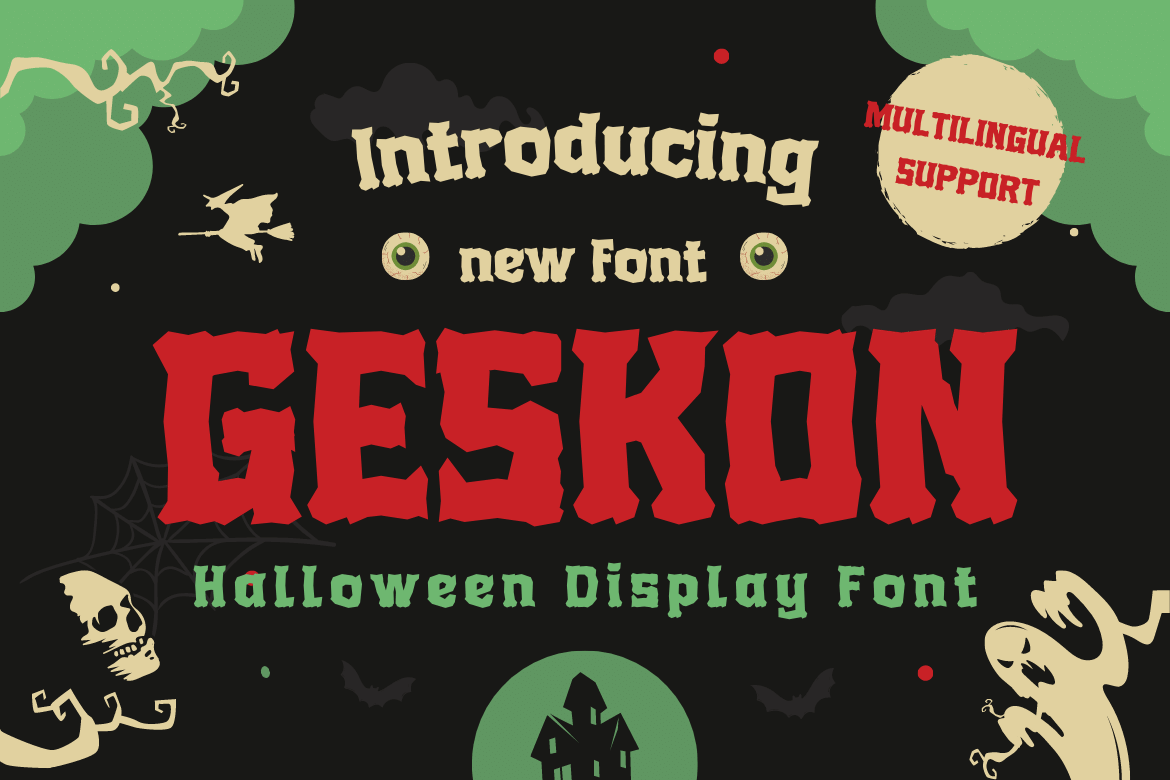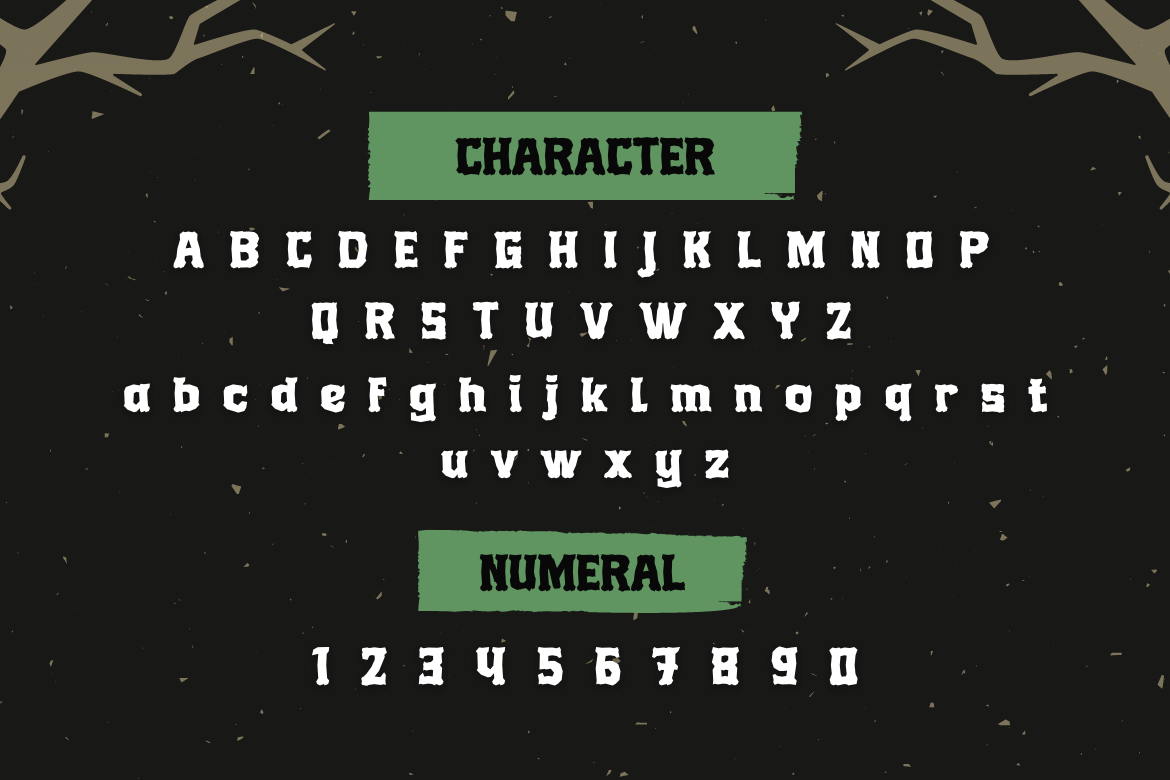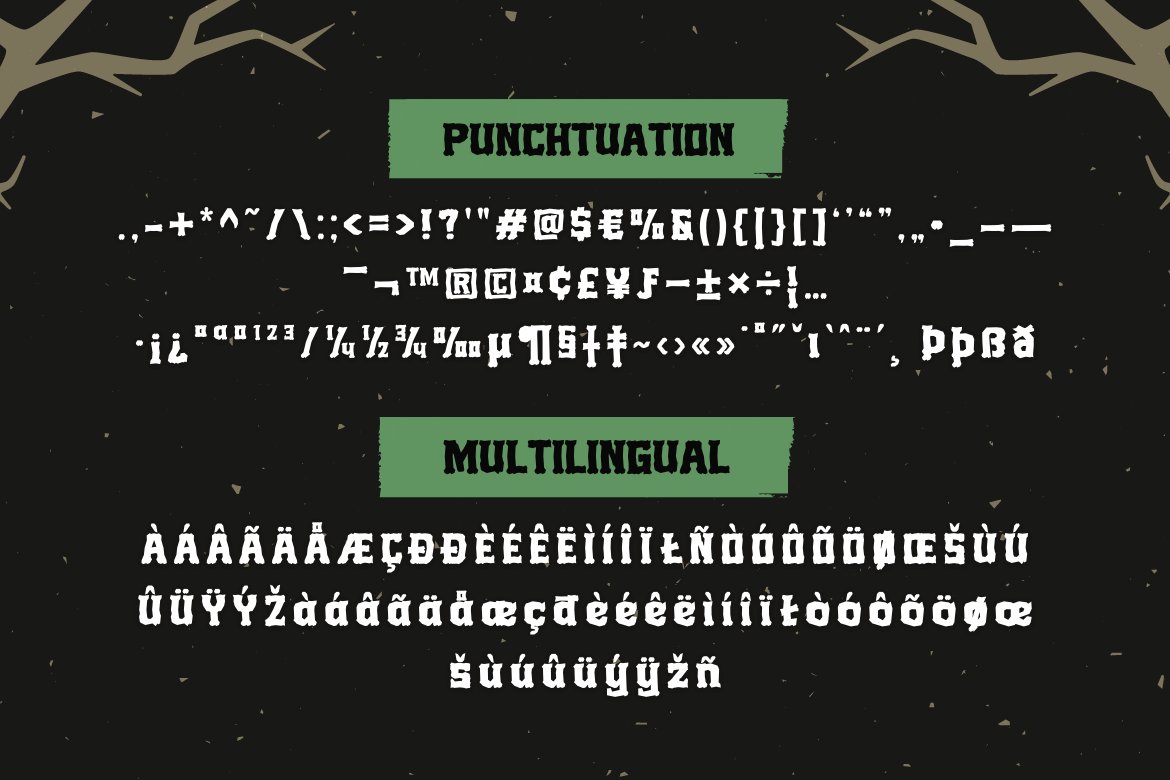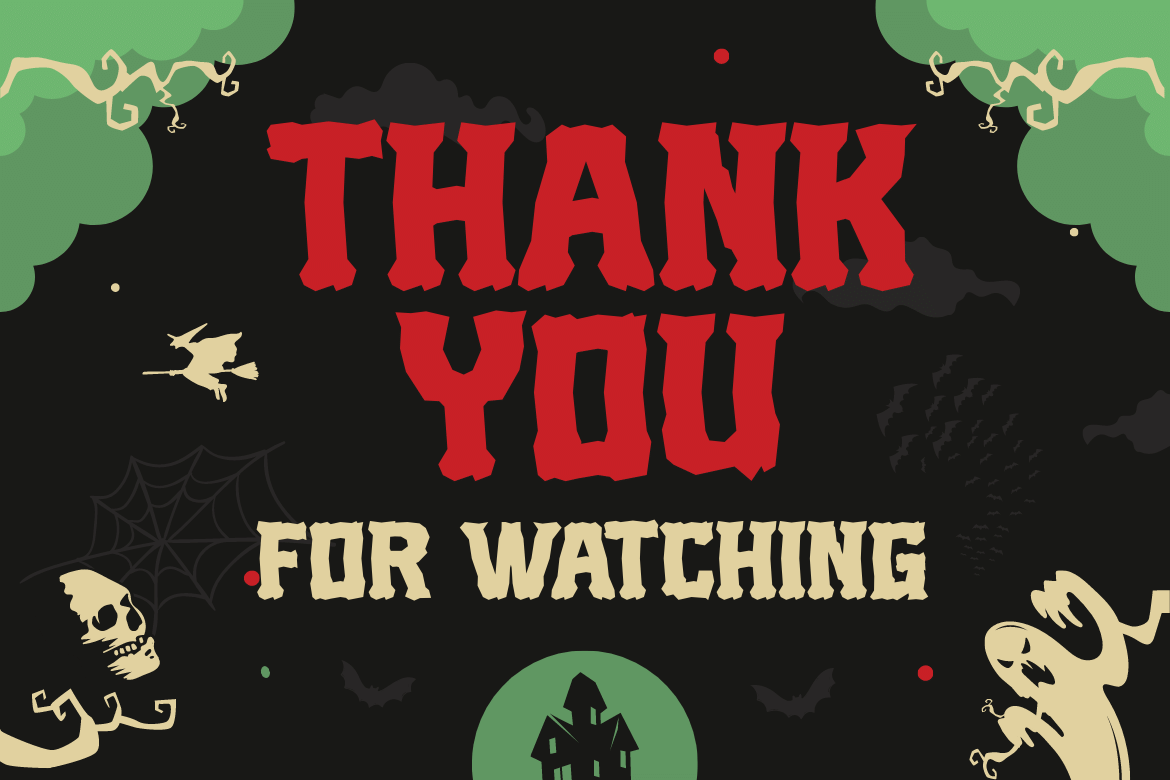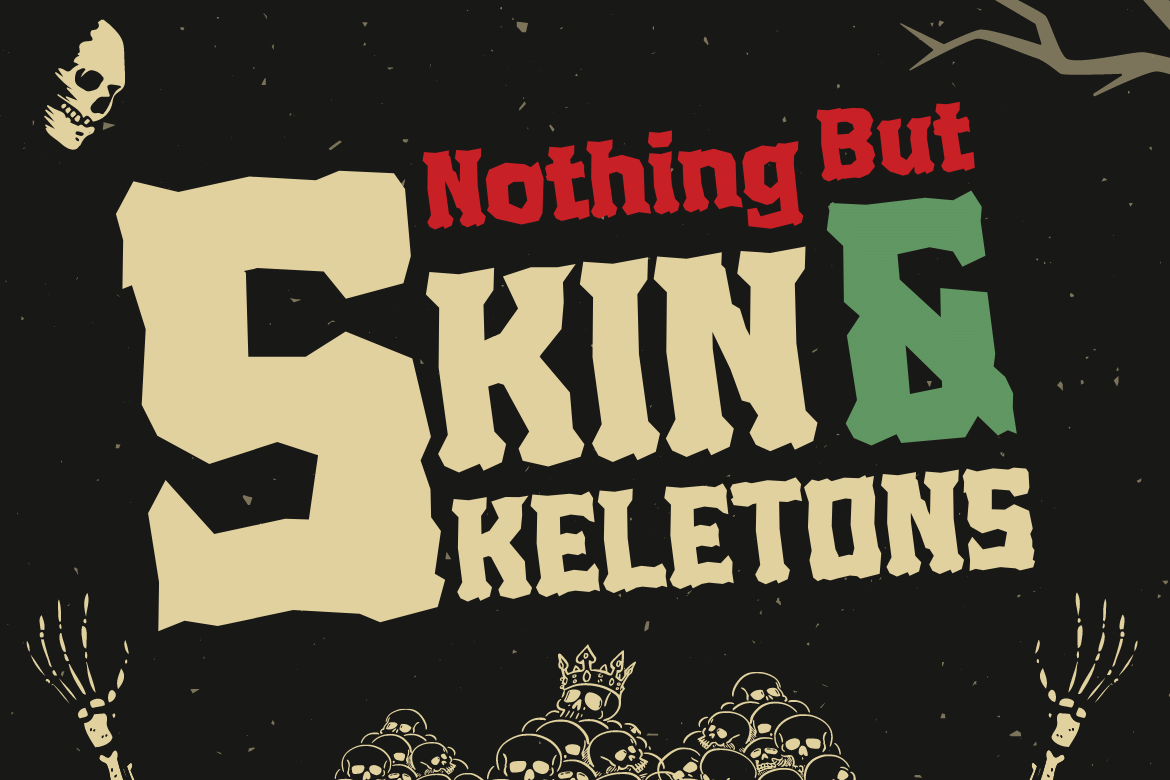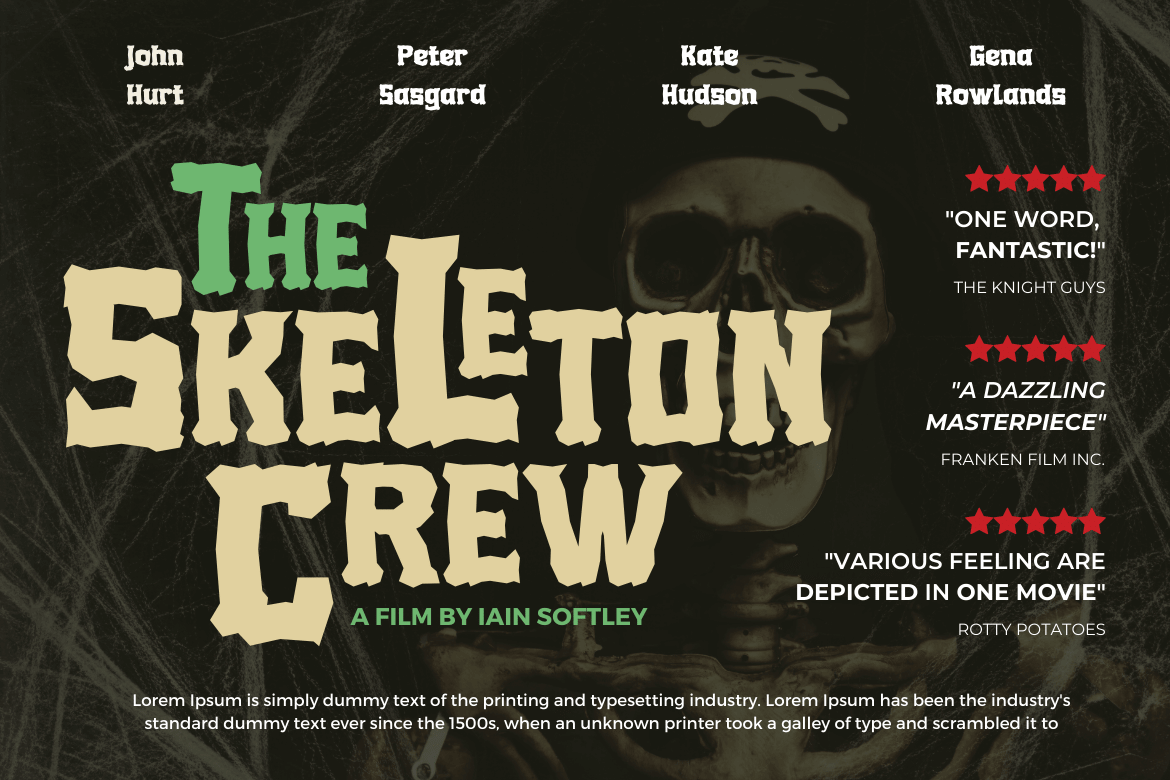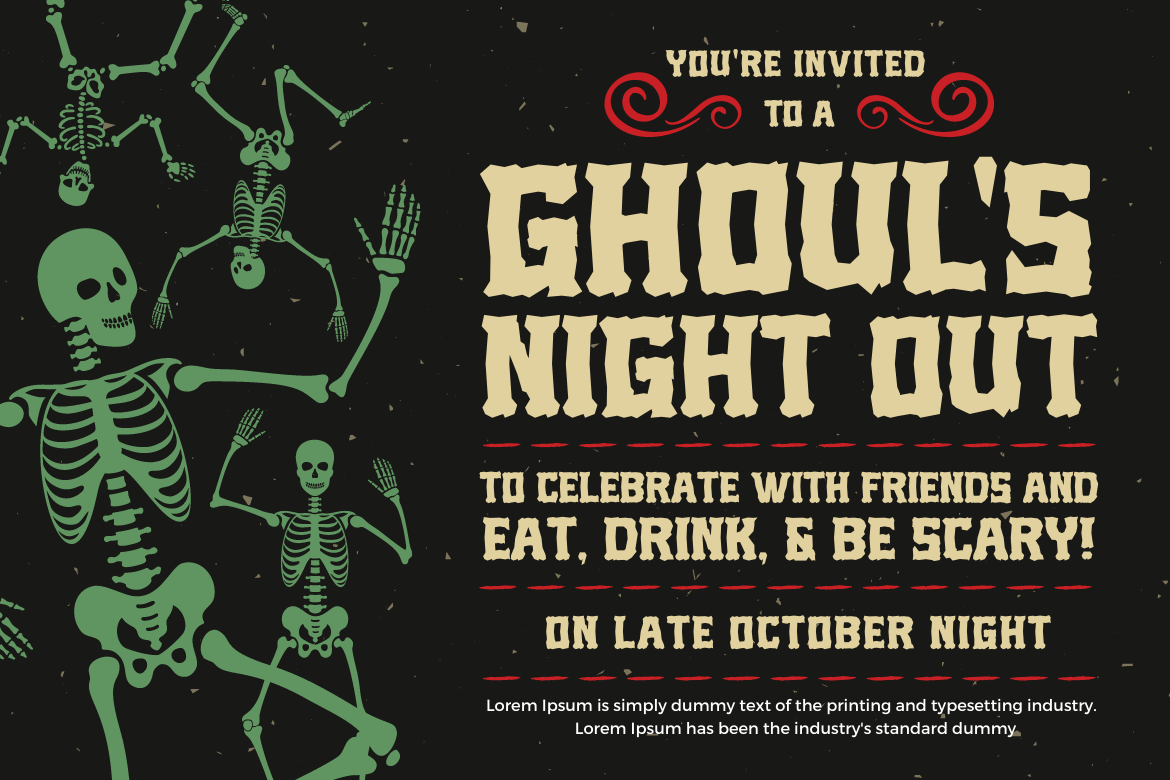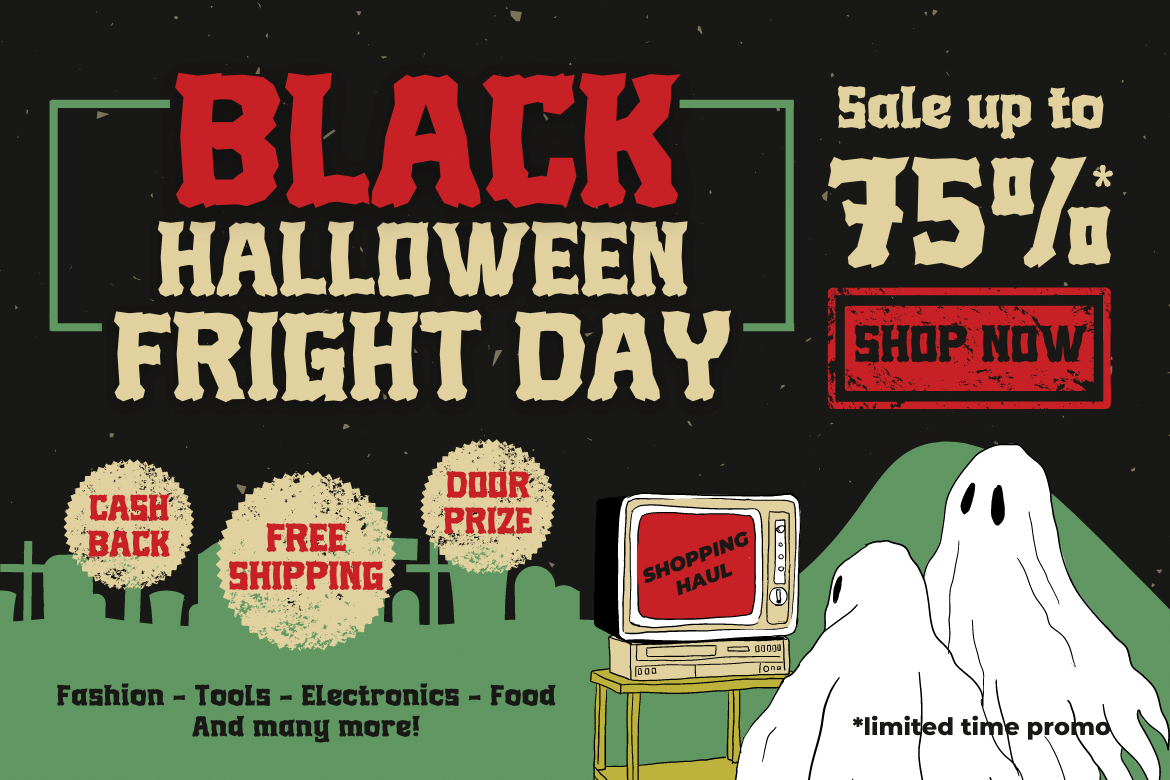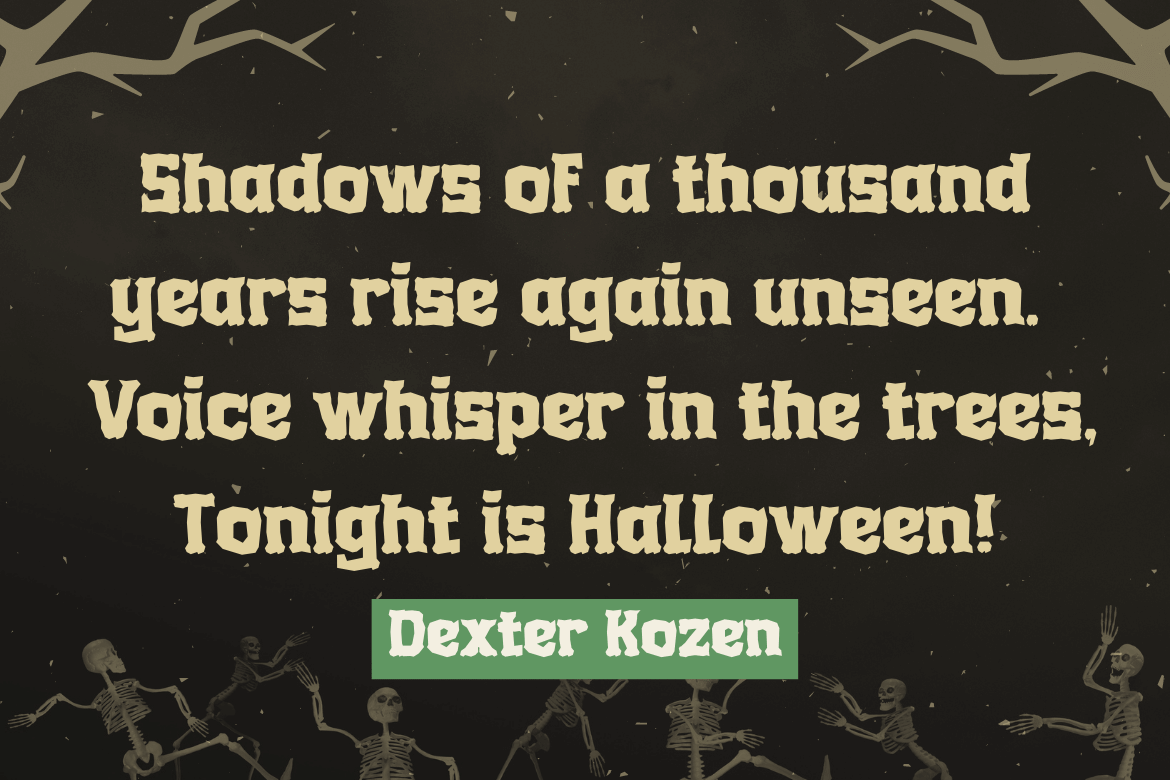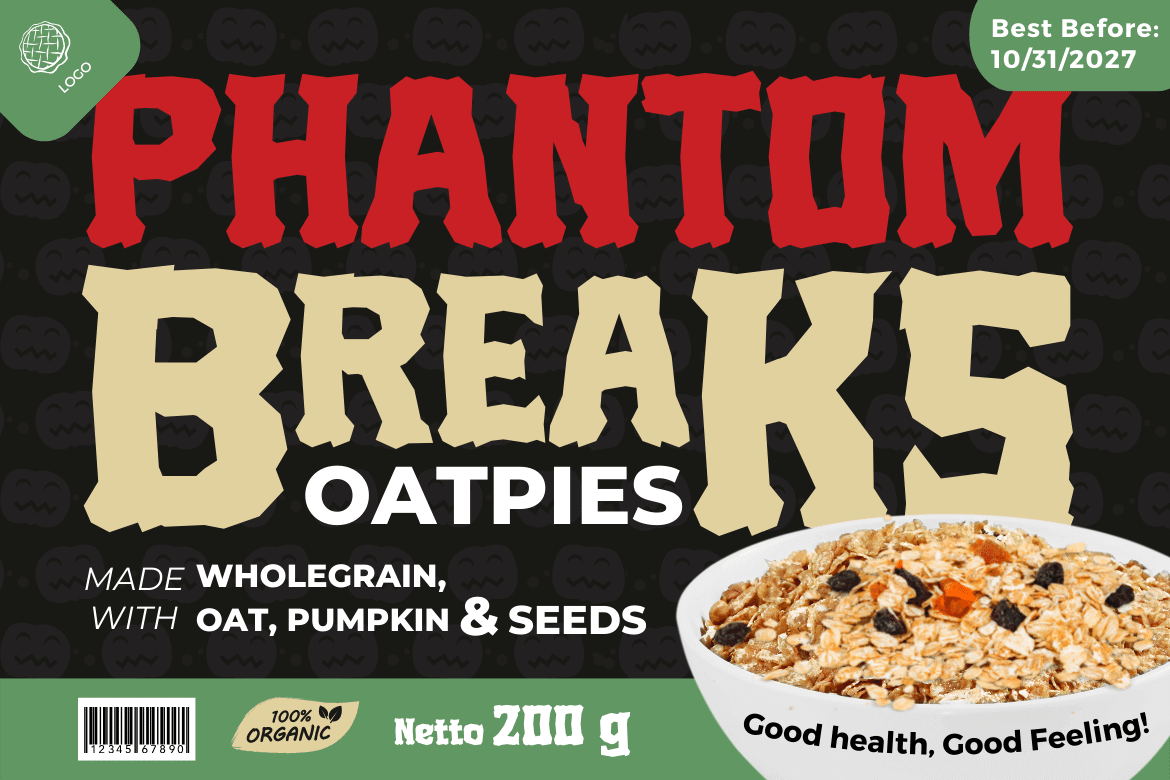
- GESKON
Geskon Halloween Font is a mystery font that will help you create a strong design display for horror and scary-themed projects. This font is perfect for you to use for making invitations, banners, and posters, or as a scary title. You can use this font to depict Halloween in an artistic or spooky way while also showing your creative talents.